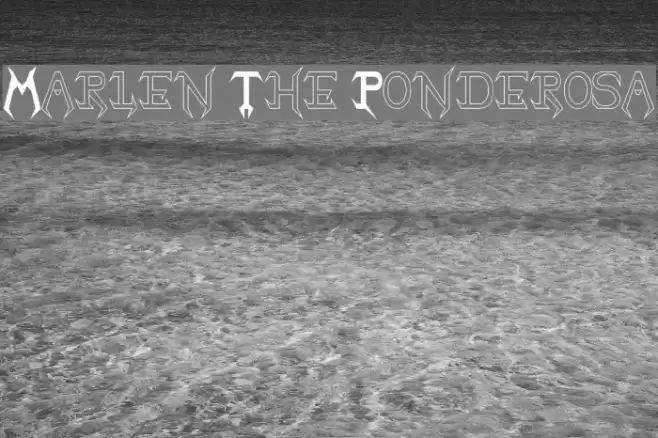
Marlen The Ponderosa Font
Marlen The Ponderosa Description
This font exhibits a bold and striking design with sharp, angular edges and a distinct geometric style. The uppercase letters are characterized by their pointed serifs and intricate detailing, giving them a unique, almost tribal appearance. The font's structure is both decorative and assertive, making it stand out in any design. The lowercase letters maintain the same angular and edgy aesthetic, ensuring consistency throughout the typeface. The numerals and special characters follow the same design principles, providing a cohesive look across all characters. This font's boldness and decorative elements make it ideal for projects that require a strong visual impact.
A bold, angular font with sharp serifs and a decorative, geometric style from Uncategorized fonts.